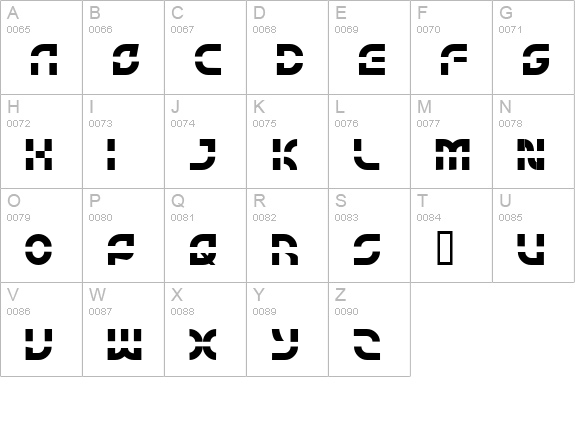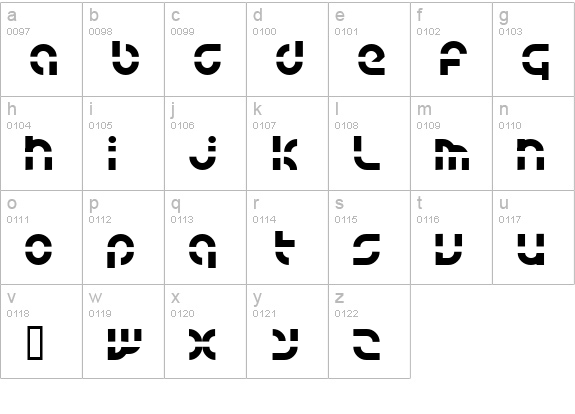
BLUE tYPE Font Details
BLUE tYPE is a modern and stylish font that exudes sophistication and elegance. Its sleek and clean lines make it perfect for a wide range of design projects, from branding to editorial design. The font features a unique blend of sharp edges and smooth curves, giving it a distinctive and eye-catching look. BLUE tYPE is not only visually appealing but also incredibly versatile, making it suitable for both digital and print designs. Whether you're creating a website, a poster, a logo, or any other graphic design project, this font is sure to make a bold statement. The best part? BLUE tYPE is completely free to download at FontsMarket.com. So go ahead and add this stunning font to your collection today and take your designs to the next level!